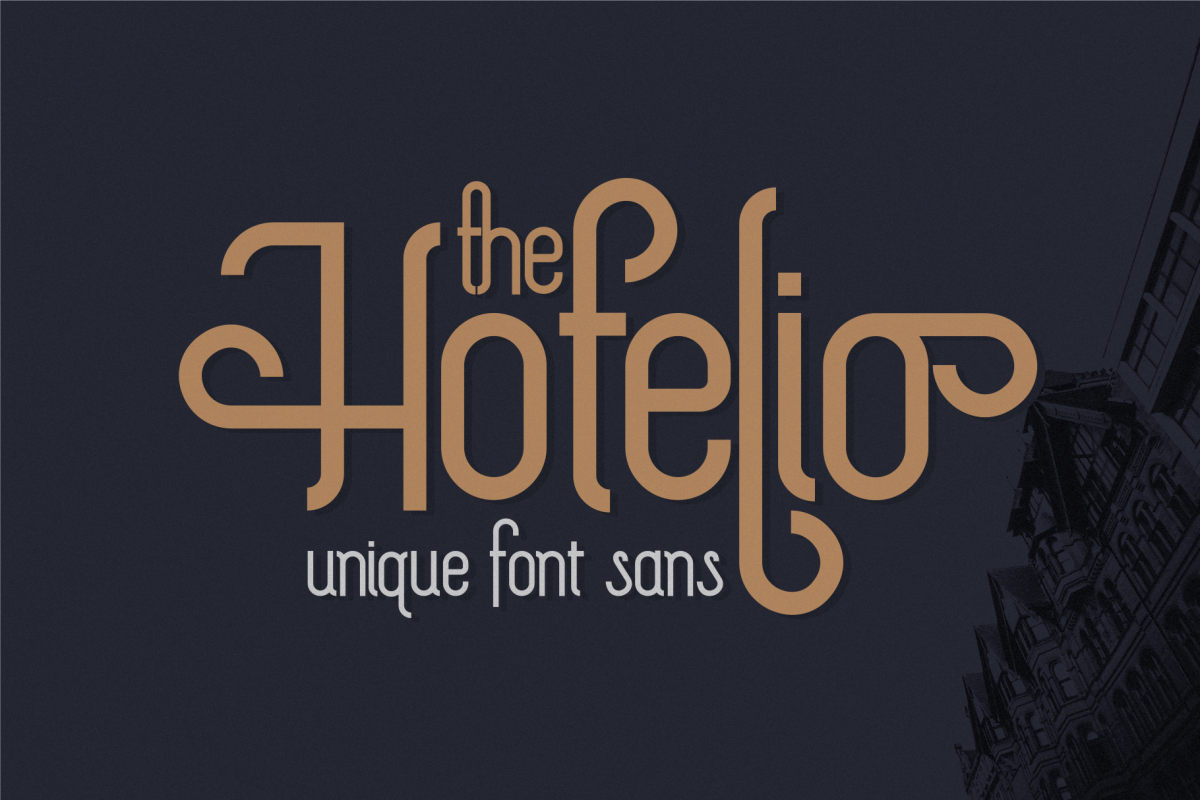
The Hotelio
The Hotelio is unique font display with with a touch of sans taste. This font supports a lot of alternate in Uppercase and Lowercase one letter has 5 different unique, so users can choose and adjust as desired, this font is also equipped with several ligature, such as the letters "ff, tr , th, rr, ss ". This font is designed for logos, posters, invitations, signage, book titles and other designs. Another uniqueness of this font can have two flavors, classic but also can have a modern taste.What you get:
• Include A lot of alternates
• Include Ligatures